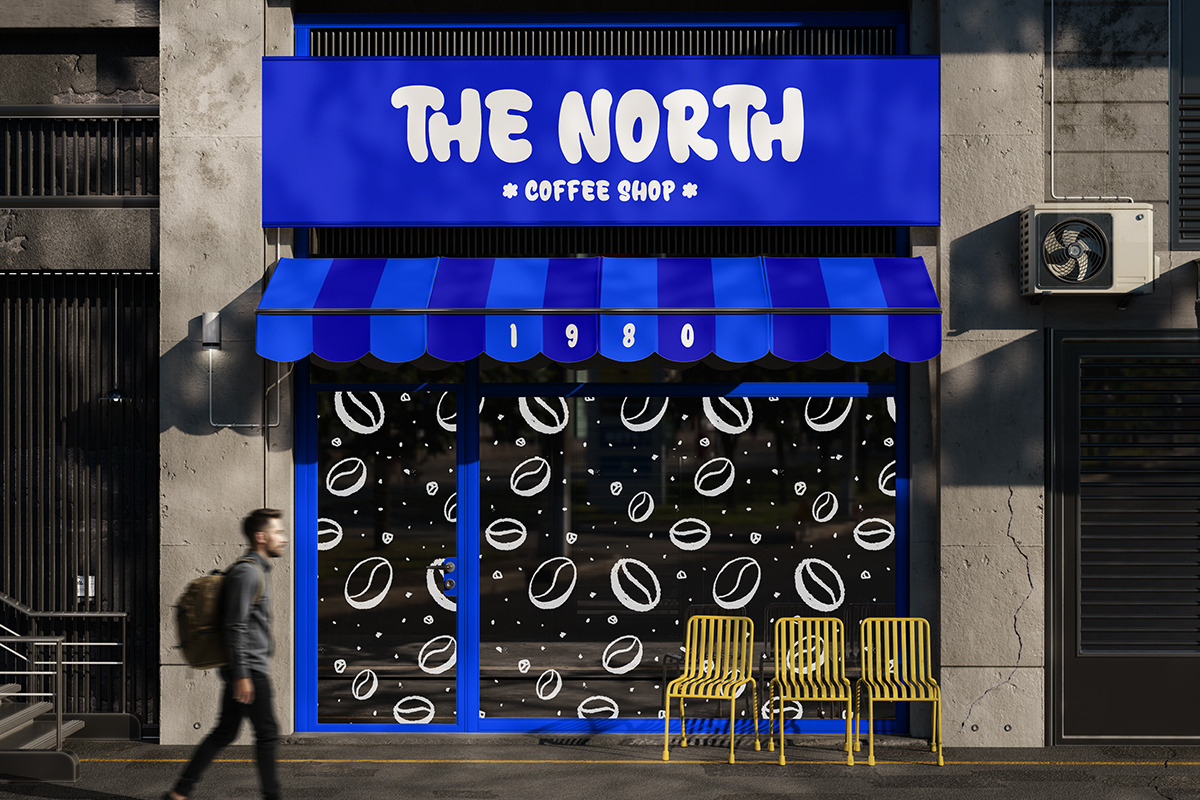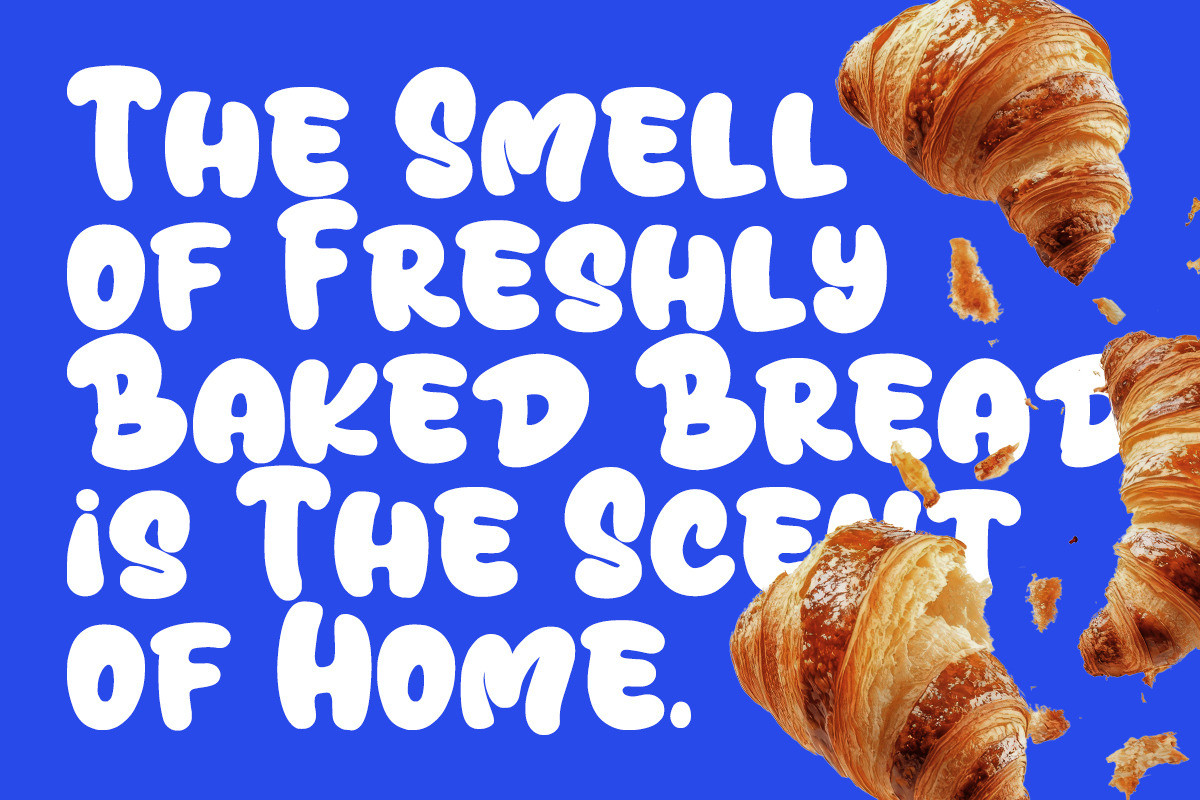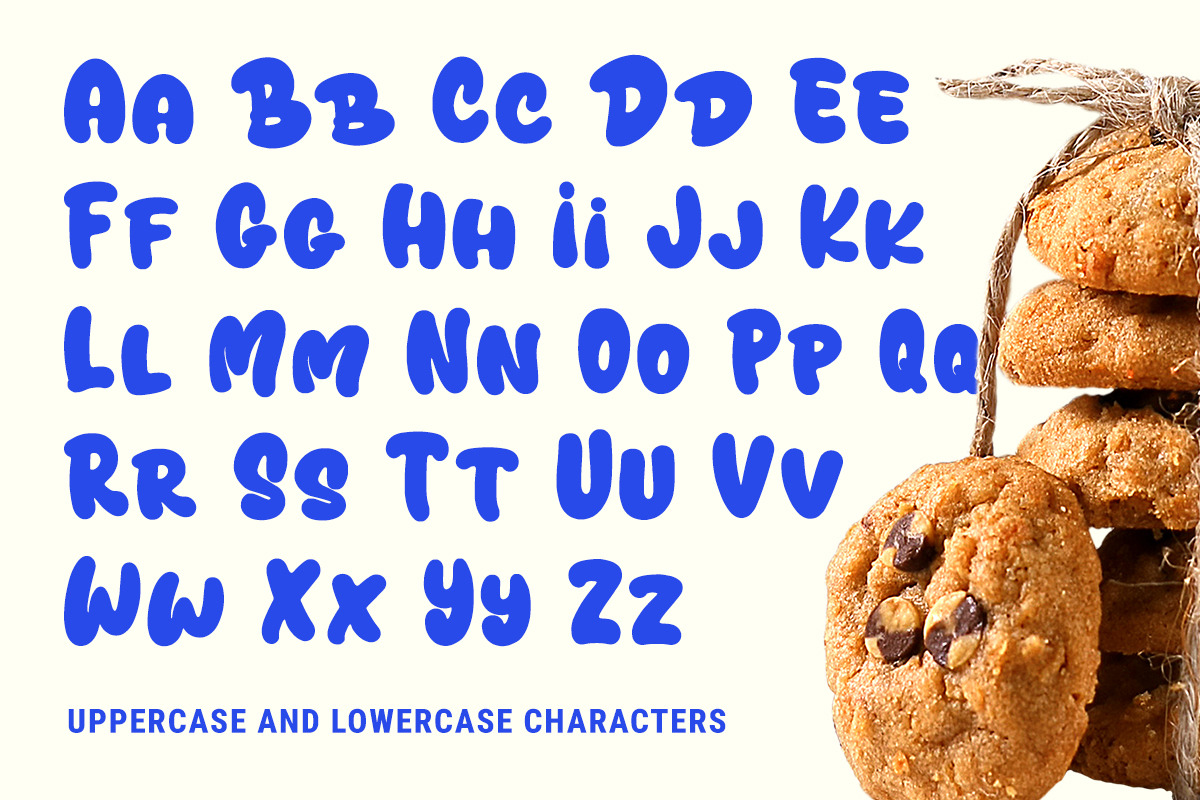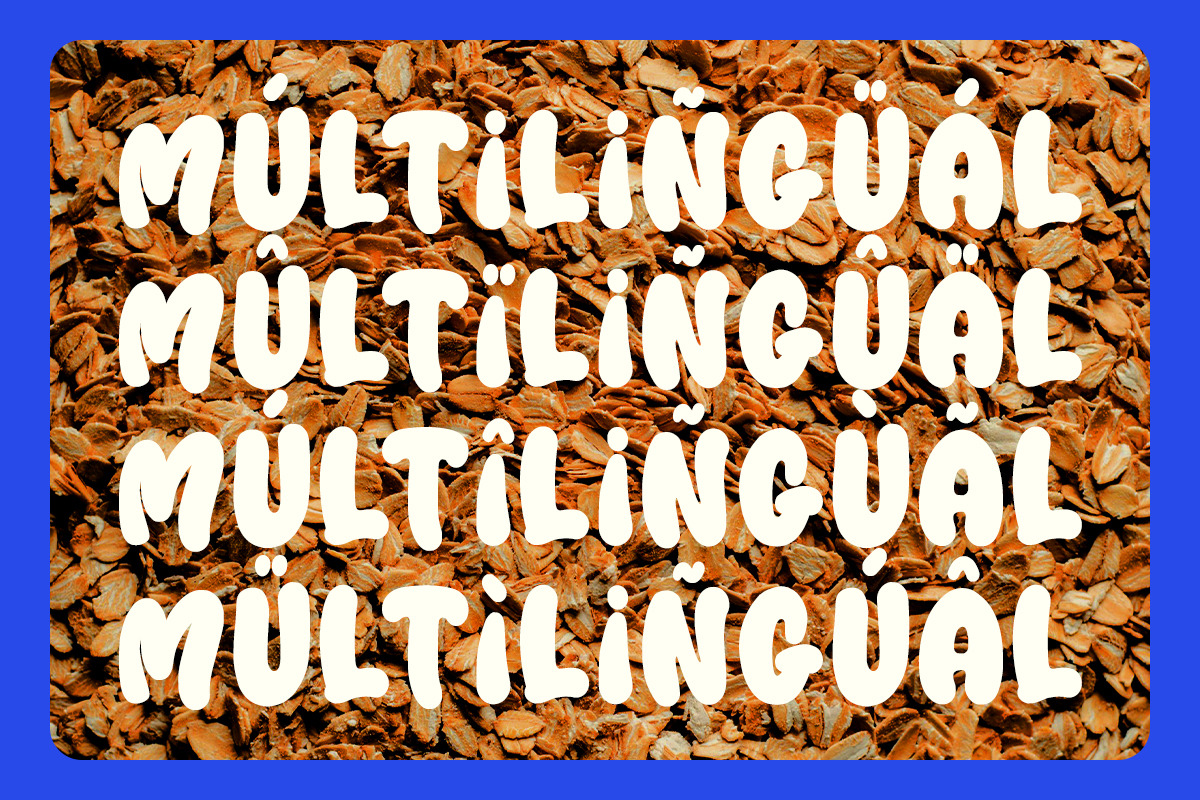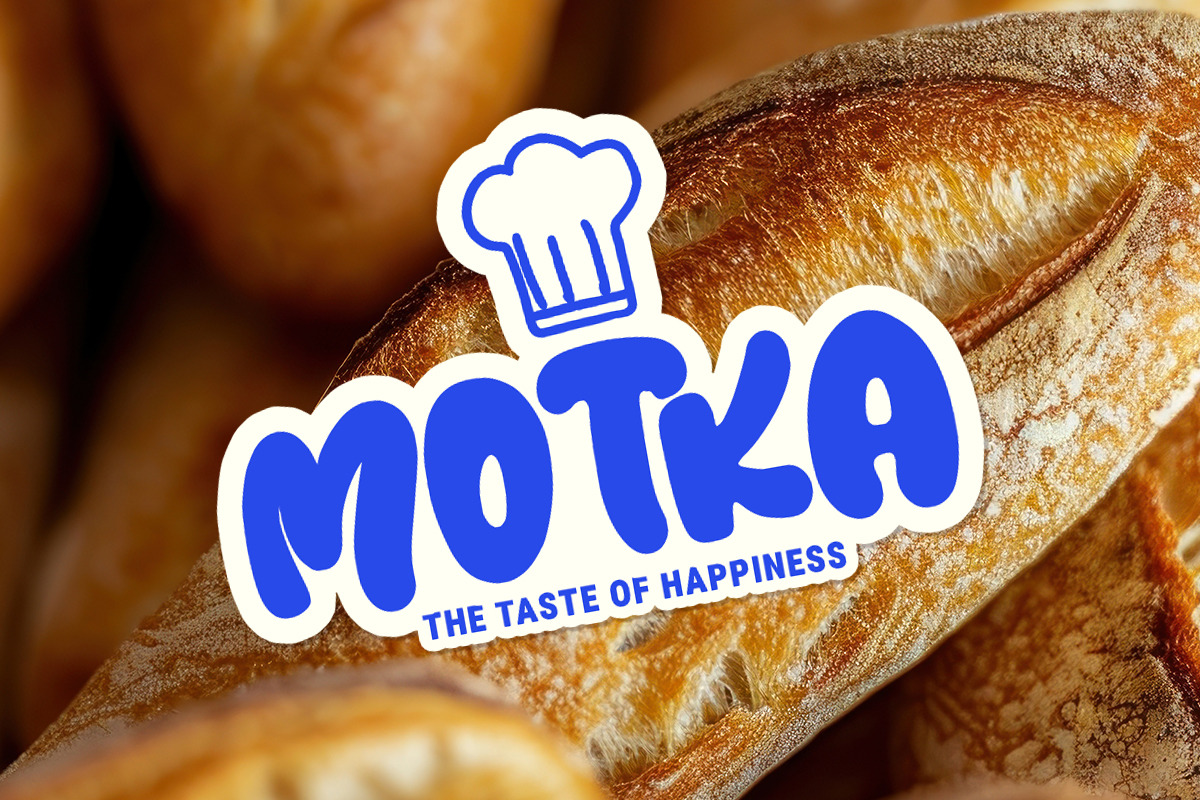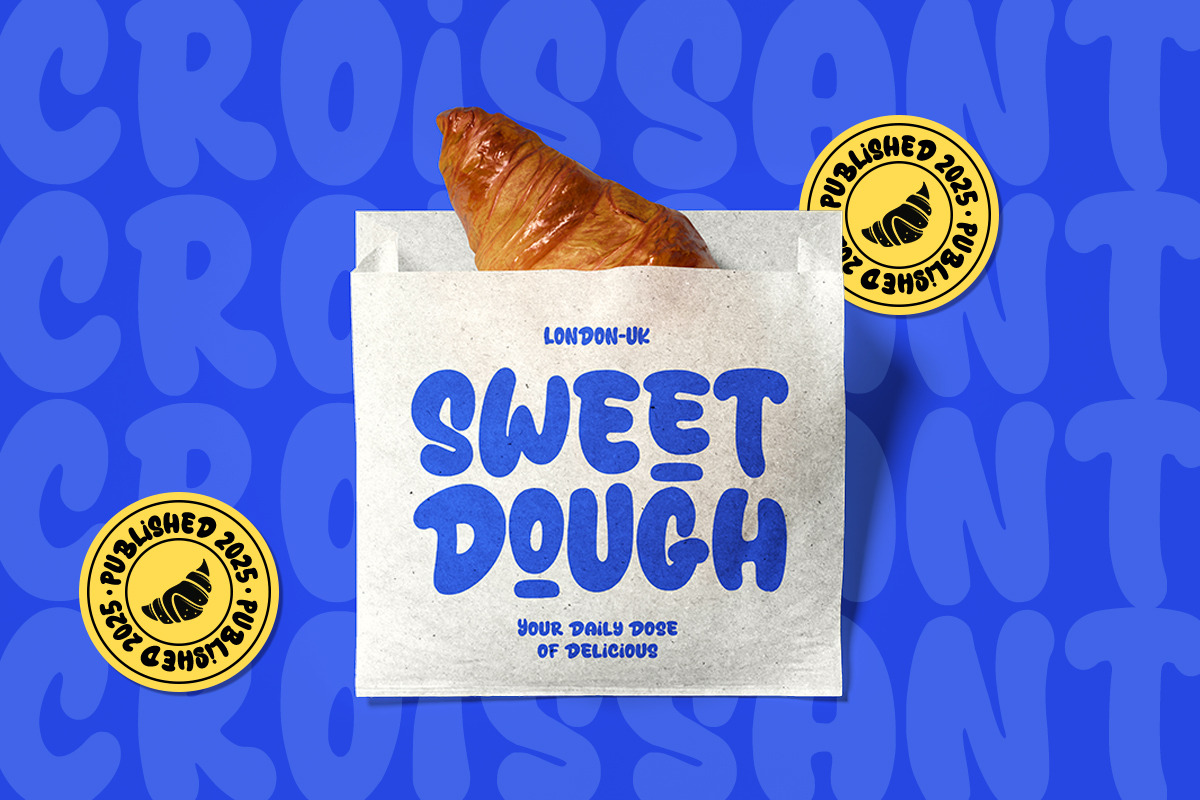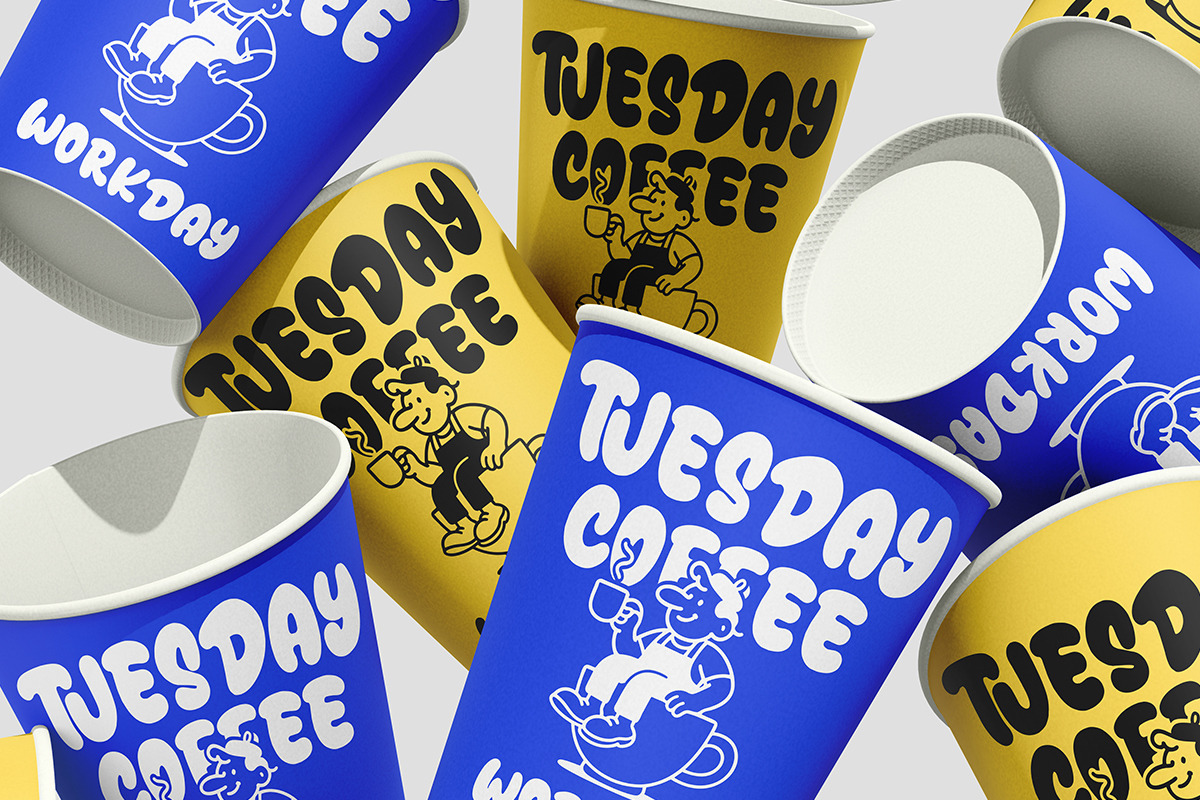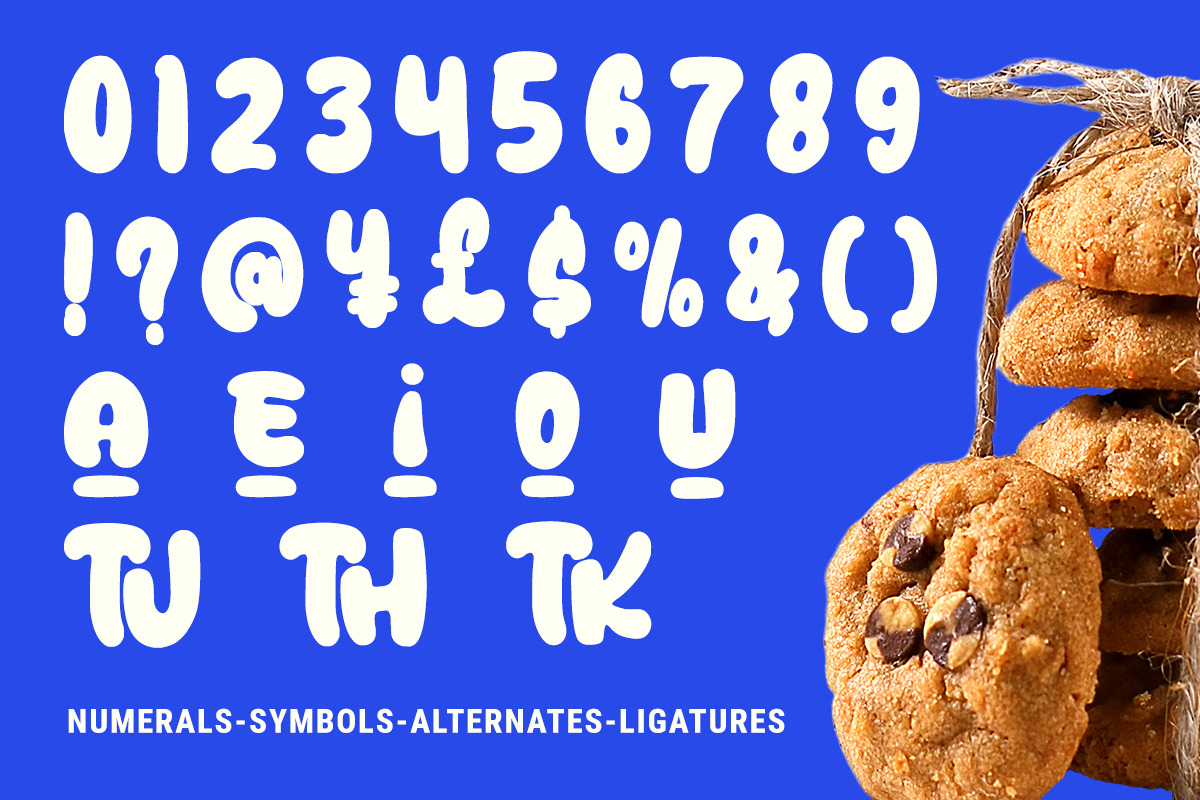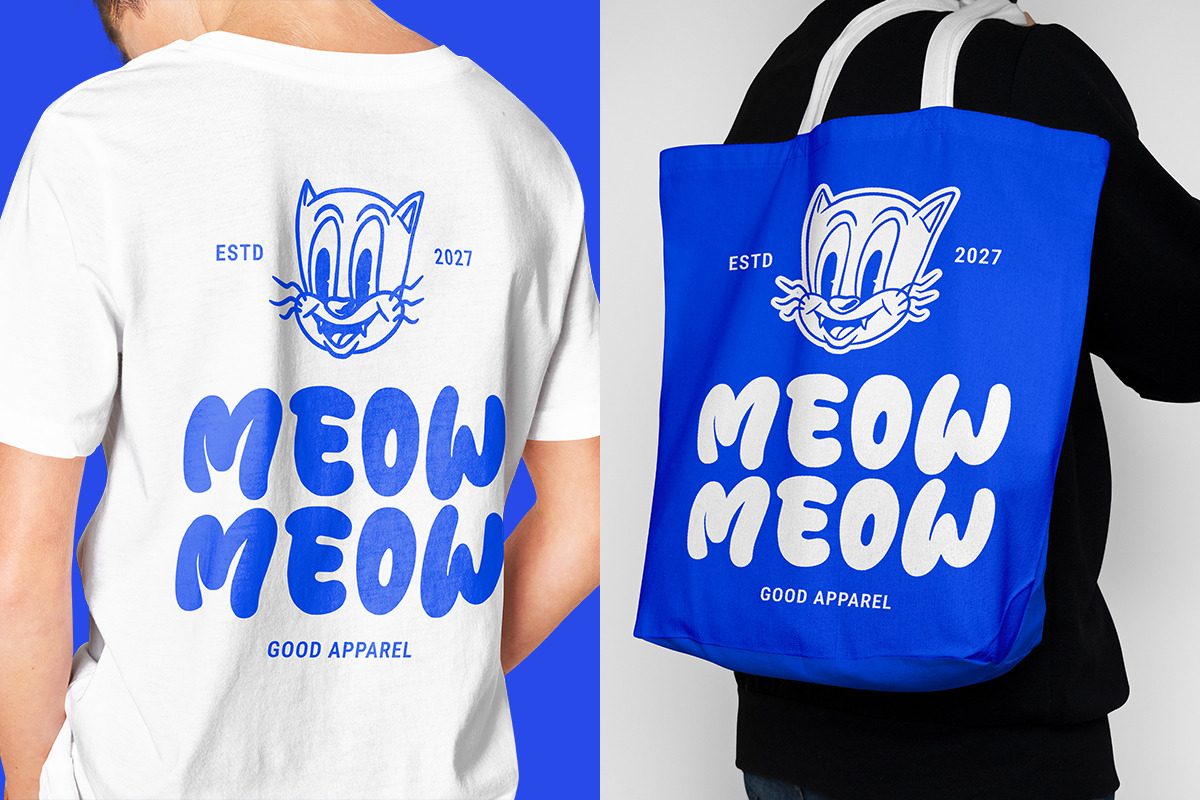
OATMEAL BREAD
Oatmeal Bread – Food Font is a warm and cozy display typeface inspired by homemade goodness and rustic charm. With soft curves and textured letterforms, this font captures the comforting feeling of freshly baked bread, morning coffee, and wholesome simplicity.
Designed to bring a handcrafted and organic look to your designs, Oatmeal Bread is perfect for bakery logos, cafe menus, food packaging, recipe books, and kitchen-themed crafts. Its friendly and natural appearance makes every word feel inviting and delicious.
Each character carries a subtle handmade texture that adds depth and authenticity, making it ideal for artisanal brands or creative projects that want to convey warmth and sincerity.
Oatmeal Bread works beautifully across digital and print media—from chalkboard menus and product labels to Cricut crafts and branding materials. Its versatility ensures your design feels fresh, homey, and full of flavor.
Bake creativity into your next project with Oatmeal Bread – Food Font. Perfect for cozy, rustic, and food-inspired designs, this typeface serves up a perfect blend of charm, warmth, and tasty visual appeal.
- Standard & Multilingual glyphs.
Fonts include multilingual support for; Afrikans, Danish, Dutch, English, Estonian, Filipino, Finnish, French, Friulian, Galician, German, Gusii, Indonesian, Irish, Italian, Luxembourgish, Norwegian Bokmål, Norwegian Nynorsk, Nyankole, Oromo, Portuguese, Romansh, Rombo, Spanish, Swedish, Swiss-German, Uzbek (Latin) Scottish, Swiss, etc.